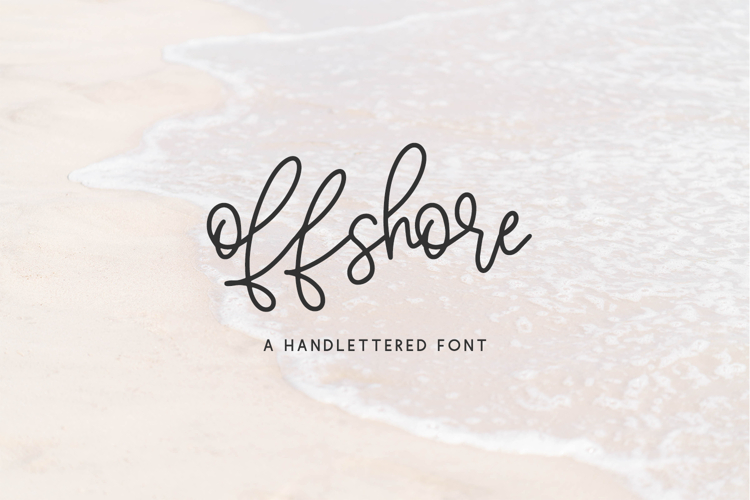
Offshore Script
Introducing Offshore Script, a handlettered calligraphy script. Offshore is a monoline font, and features beautiful loopy ascenders & descenders, as well as a selection of alternates & ligatures.
Offshore Script is best for:
- logos + branding for feminine or kid-centric brands
- header elements that need a cute handwritten touch
- crafting with Cricut or Silhouette machines, since it has a super smooth edge for cutting vinyl!
Offshore Script includes:
- 26 alternate characters
- 21 ligatures - bb, cc, co, dr, dd, ee, er, ff, fr, gg, ir, ll, mm, nn, oo, or, pp, rr, sr, ss, tt